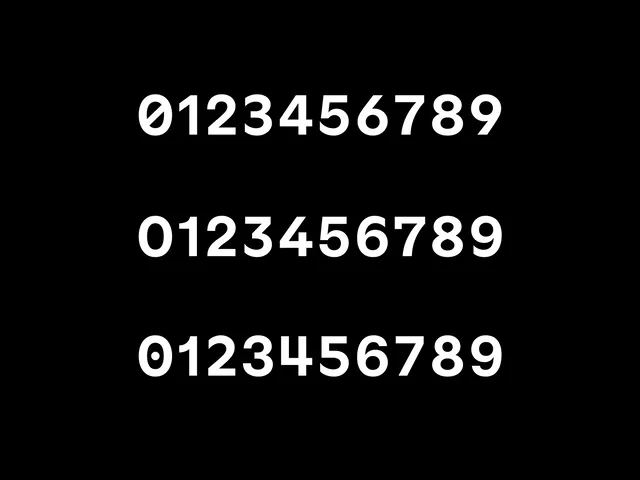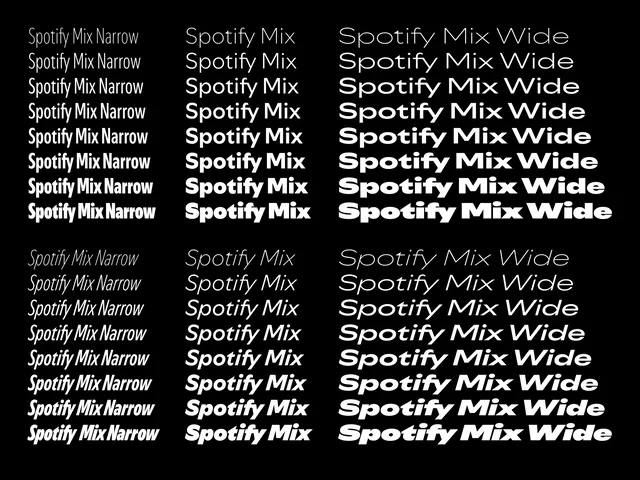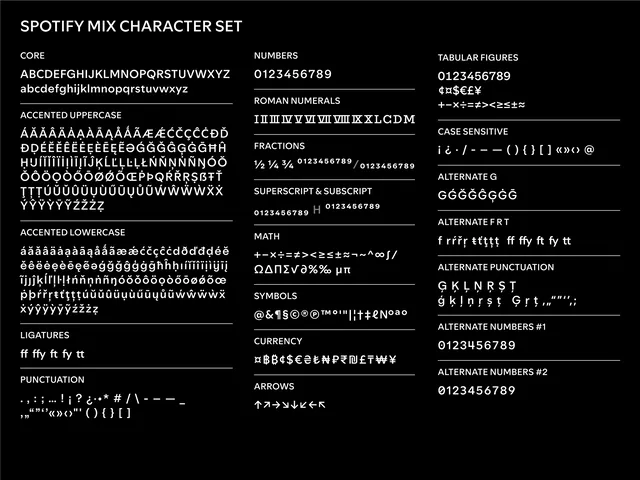
Dinamo unveils a new custom typeface for Spotify
The German type studio has teamed up with the streaming giant to create Spotify Mix, a groundbreaking custom typeface representing the diversity of its audio content.
Acclaimed Berlin-based type foundry Dinamo are well known to us at Creative Boom: we recently shared their work on a new dot font based on furniture screws and regularly feature them on our best new typefaces roundups. So it's with excitement that we hear they've recently designed a new custom typeface for Spotify in collaboration with Spotify's in-house creative team called Spotify Mix.
The new font represents a major milestone for Spotify, the world's most popular audio streaming platform, as it continues to evolve its brand identity and user experience.
Spotify Mix will be used across all its apps, desktop experiences, branding and marketing materials moving forward.
Conceptual roots
According to Dinamo, Spotify Mix is "rooted conceptually in ideas of remixing and functions as a vast toolbox that allows for extreme typographic flexibility."
At its core, it's a variable font with an expansive width and weight range, along with a rich array of alternate characters. This versatility perfectly positions it for dynamic and expressive typography, whether in static designs or animated motion graphics.
"Spotify Mix is, quite literally, a typographic remix," Dinamo explains. "It combines elements you'd find in geometric, grotesque, and humanist typefaces and blends them together." This innovative approach fuses the sharp flicks of humanist strokes with the smoother curves found in grotesque letterforms, resulting in a distinctive flow and rhythm.
Symbolic meaning
Of course, the symbolic meaning here is pretty obvious. By mixing different classic typeface genres, Spotify Mix aims to represent the incredible diversity of music genres, artists, podcasts, and other content that populate Spotify's vast audio universe.
One of its standout design features is the almond-shaped counter space found in letters like p, d, and g. This seemingly subtle detail serves as another metaphor by subtly alluding to the transmission and expansion of audio waves. Three sets of numbers, meanwhile, invite further play and variety.
To further customise the typeface's expressive range, Spotify Mix includes three distinct sets of numerical figures, inviting designers to play and explore even more creative possibilities.
New typographic direction
Thomas Huygen, Chief Marketing Officer at Spotify, expresses his enthusiasm for the new typographic direction. "At Spotify, we're obsessed with enhancing how our users discover and experience the world's catalogue of music and audio content," he says. "With Spotify Mix, we now have a brand-new custom typeface that perfectly captures our identity as curators of the ultimate remix: the remix of creative expression across genres, cultures and artists."
For the team at Dinamo, this collaboration with Spotify represented a landmark creative challenge. "This has been a gigantic, out-of-this-world project, and we're very excited that its rollout has begun," they declare. "We're incredibly proud of the result of this special partnership and can't wait to follow its journey as Spotify Mix makes its debut across Spotify's platforms."
As Spotify Mix begins appearing across Spotify's digital ecosystem and marketing campaigns in the coming weeks and months, we're starting to see how artfully crafted type is able to encapsulate a brand's identity and values. From what we've seen so far, it's going to do a brilliant job.